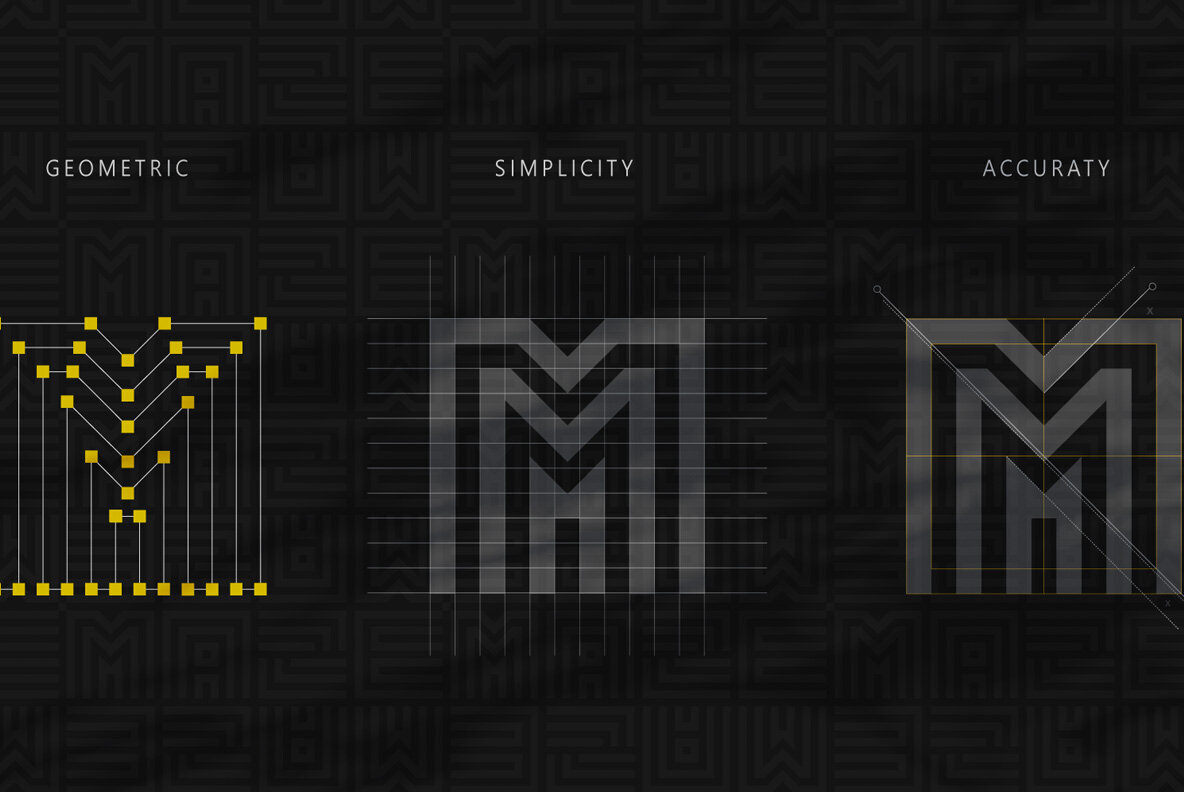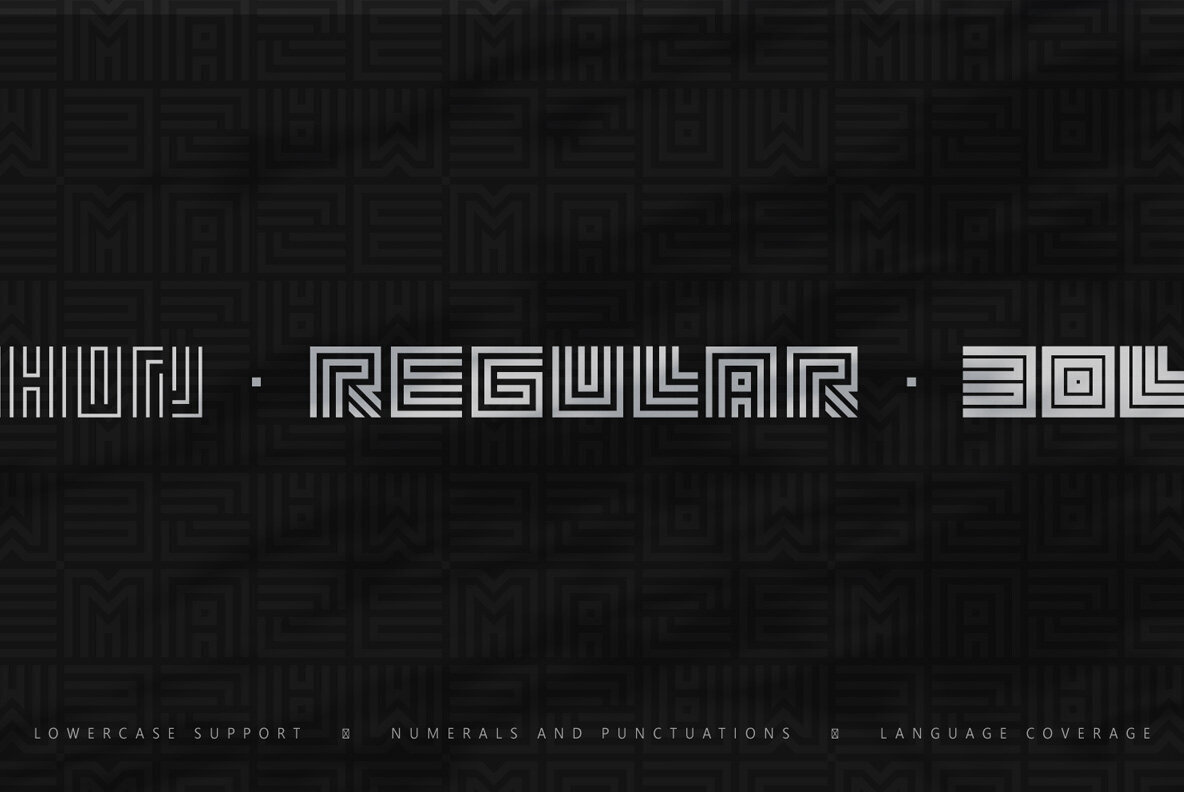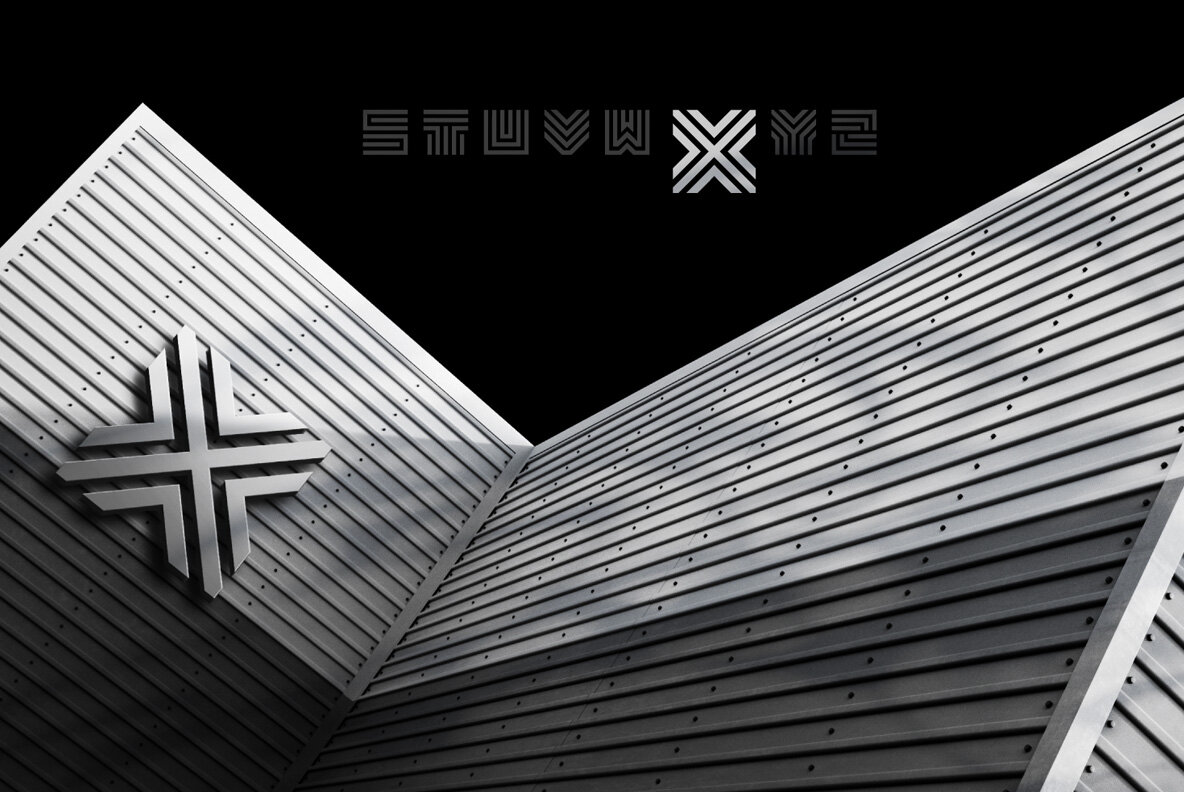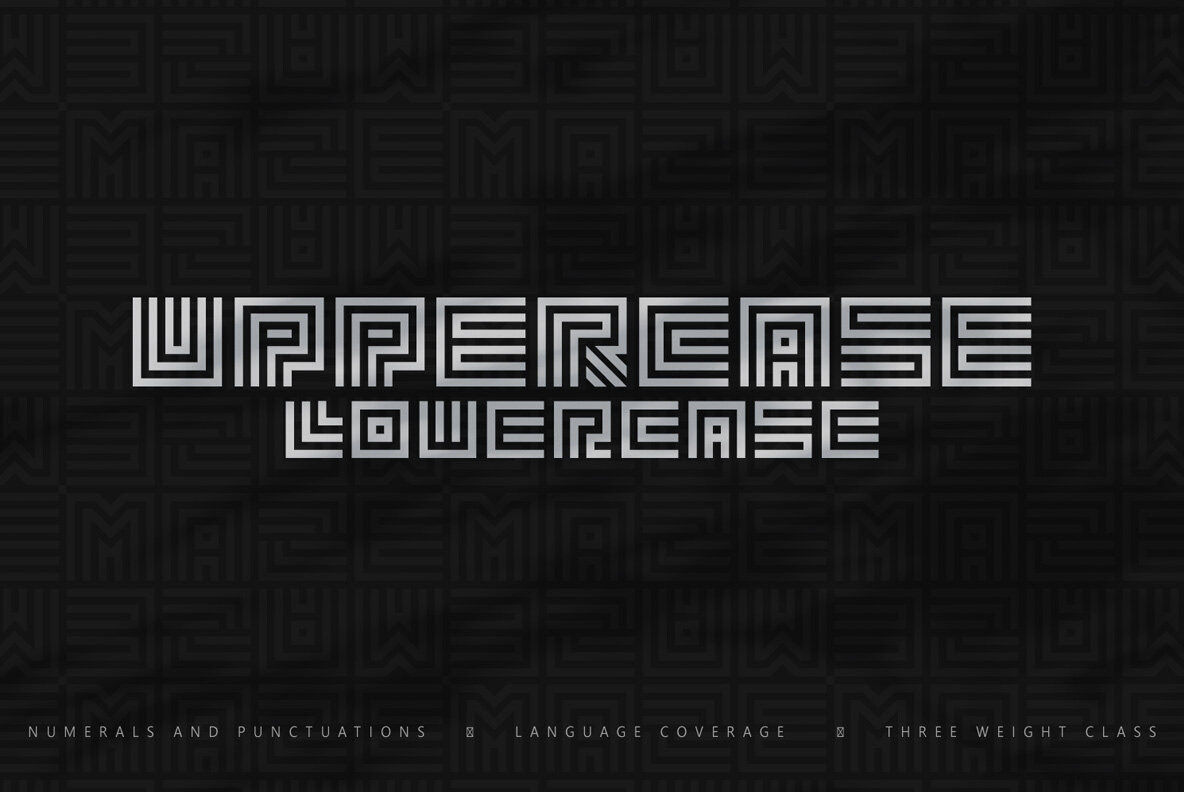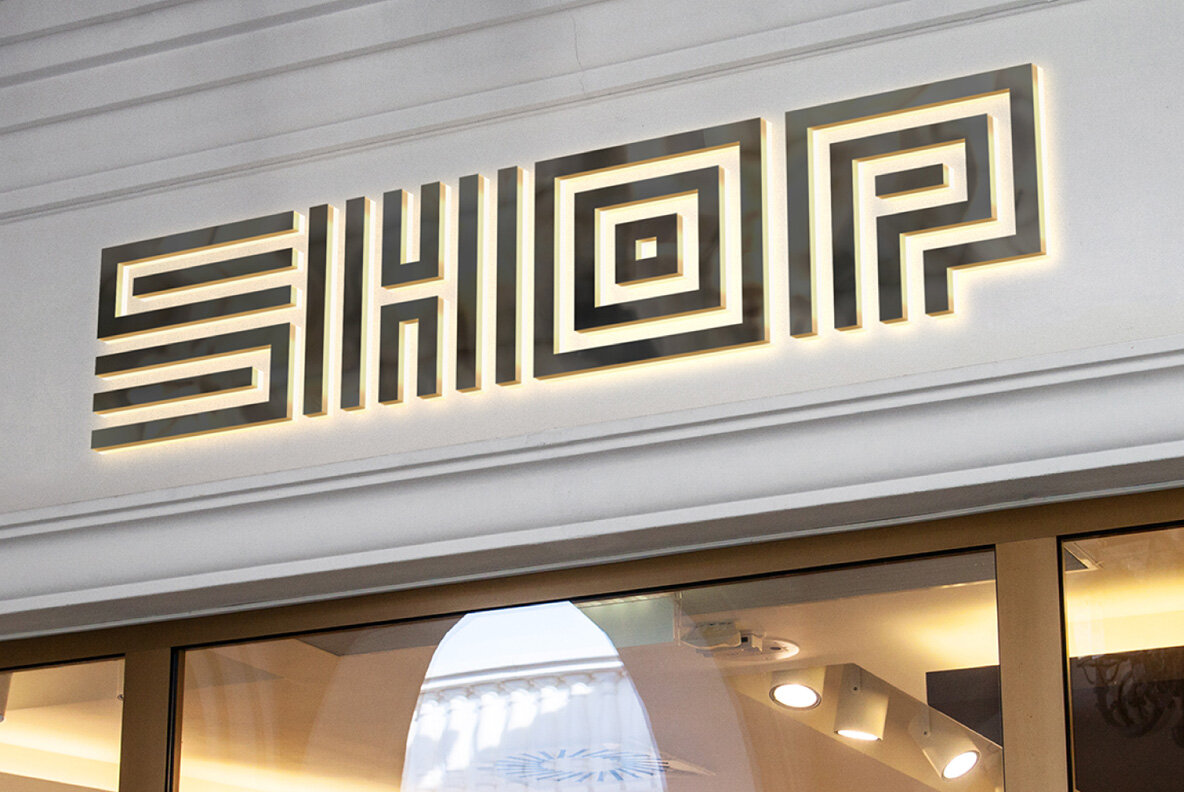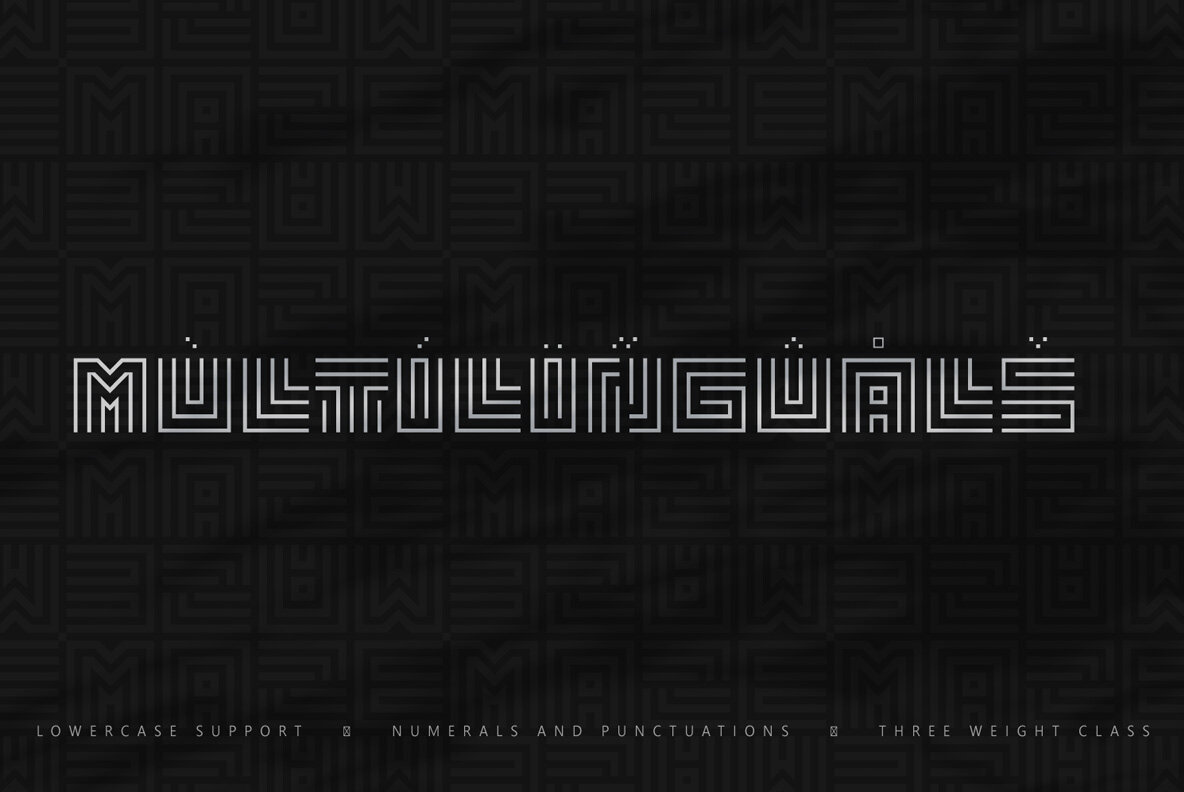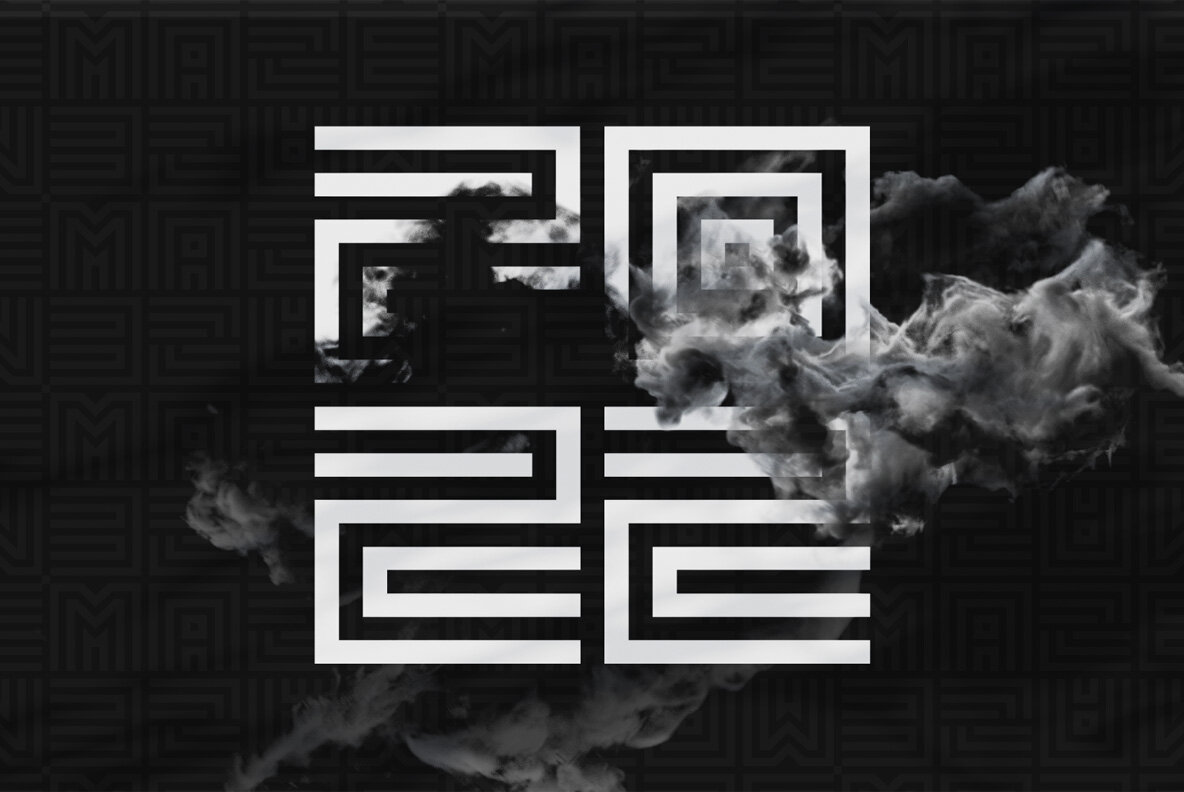
Geommaze 1
If you like geometrical shapes, symmetrical compositions and linear design, I suggest you get acquainted with the Geommaze font. I created it with love, soul and understanding what your projects are missing, so the font should be useful to you.
I was inspired to its creation by drawings of labyrinths, road junctions and the result will be really amazing, I'm sure that this font will be an excellent addition to your set of fonts. Try to create logos, monograms, posters and just modern stylized inscriptions with the help of "Geommaze", use all the charm of the font in reality.